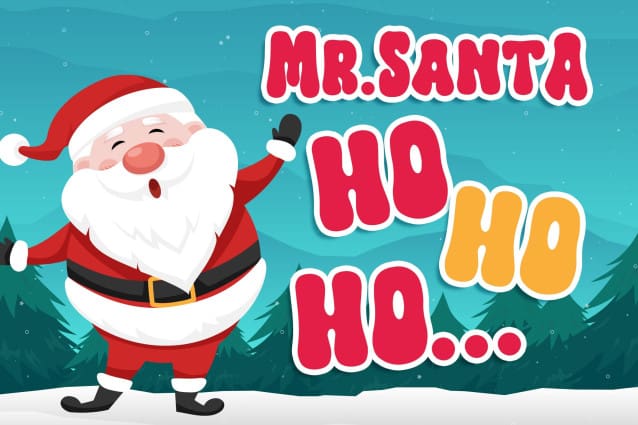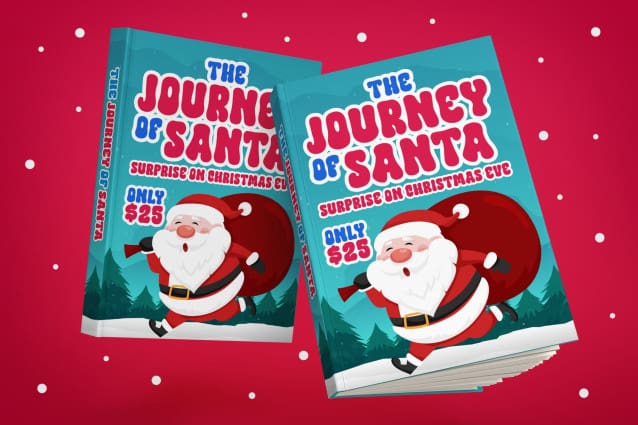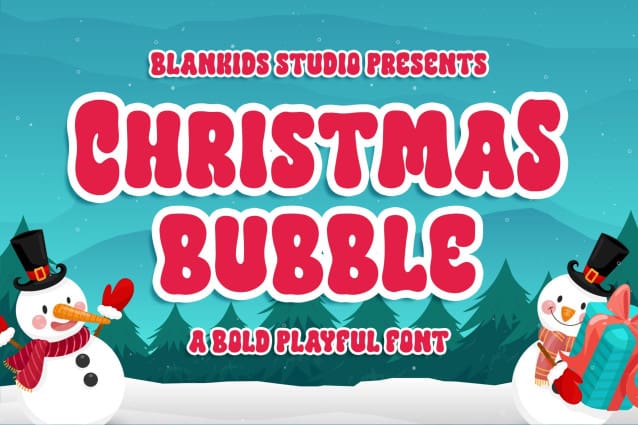
Christmas Bubble Font
Christmas Bubble Font a Bold Playful Font, Inspiring from playful stone style typography. This font is perfect for a design that makes it more attractive and playful. made with a very good level of aesthetics making this font suitable for book cover, children book, comic, poster, packging, merchandise, logotype and much more.